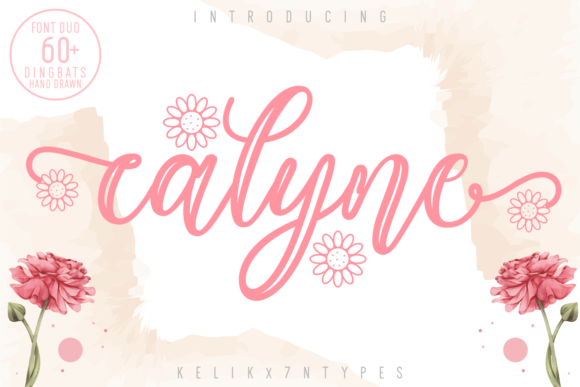
Discover the Whimsy of Calyne Font
Have you ever stumbled upon a design that made your heart skip a beat? For designers, those moments are what drive us to create something truly special. And that’s exactly what happens when you lay eyes on the Calyne Font – a delicate and elegant handwritten font with floral elements that will transport you to a world of wonder.
This beautiful font is more than just a pretty face; it’s a masterpiece of typography that will elevate your designs to new heights. With its distinct and well-rounded letters, Calyne Font is a versatile tool that will inspire you to push the boundaries of creativity. Whether you’re a seasoned designer or just starting out, this font is a valuable addition to your toolkit.
Calyne Font Key Features
- Font Family: Calyne
- Unique Characteristics: Calyne Font features a unique blend of modern and elegant styles with a high level of legibility, making it suitable for a wide range of applications, including body text and headings.
Calyne Font Review
I recently had the chance to work with the Calyne font, and I must say it’s a unique and interesting addition to any design project. Here are some of the things that work well:
- ✨ The font’s unique, hand-drawn feel adds a touch of elegance and sophistication to any text.
- ✨ The various font weights and styles provide a lot of flexibility for designers looking to add depth and visual interest to their work.
- ✨ The font is highly legible, making it a great choice for body text and headings alike.
- ⚠️ The font’s unique feel can also make it feel a bit inconsistent or unpolished in certain contexts.
- ⚠️ Some of the font weights and styles can be a bit difficult to read at smaller sizes.
- ⚠️ The font is not as widely supported as some other popular fonts, which can be a concern for designers working with older systems or browsers.
Overall, I’d say the Calyne font is a great choice for designers looking to add a bit of personality and flair to their work. However, it’s not without its limitations, and designers should be aware of these before deciding to use it.
Tips: Use Calyne Font for headings and titles to add a touch of elegance to your designs.
Tips: Use Calyne Font for logos, business cards, and other print materials to create a professional look.
Tips: Use Calyne Font for headings, titles, and body text to create a consistent look across your presentation or document.
Calyne Font is ideal for:
- Business cards and stationery
Alternatives to Calyne Font
Open Sans is a clean, modern sans-serif font designed by Steve Matteson. It is highly legible and works well for both body text and headings. Open Sans is a great alternative to Calyne Font when you need a neutral, sans-serif font that is easy to read.
Comparison: While Calyne Font has a more unique, hand-drawn feel, Open Sans is more straightforward and neutral. Open Sans is a good choice when you need a font that won’t compete with your design, but will still provide a clean and modern look.
Lato is a modern sans-serif font designed by Łukasz Dziedzic. It has a clean and elegant feel, making it perfect for body text and headings. Lato is a good alternative to Calyne Font when you need a font that is both modern and sophisticated.
Comparison: While Calyne Font has a more playful feel, Lato is more serious and elegant. Lato is a good choice when you need a font that will add a touch of sophistication to your design.
Montserrat is a sans-serif font designed by Julieta Ulanovsky. It has a urban, geometric feel, making it perfect for headings and titles. Montserrat is a good alternative to Calyne Font when you need a font that is bold and eye-catching.
Comparison: While Calyne Font has a more subtle feel, Montserrat is more dramatic and attention-grabbing. Montserrat is a good choice when you need a font that will add a touch of drama to your design.